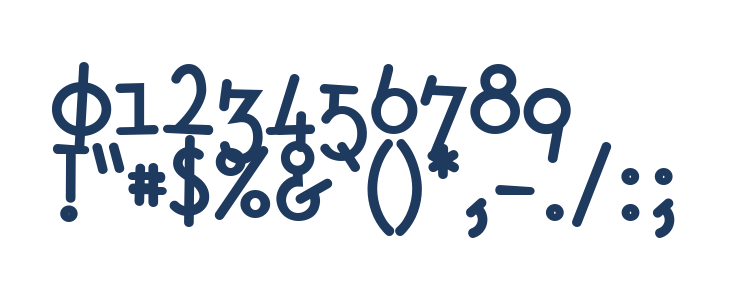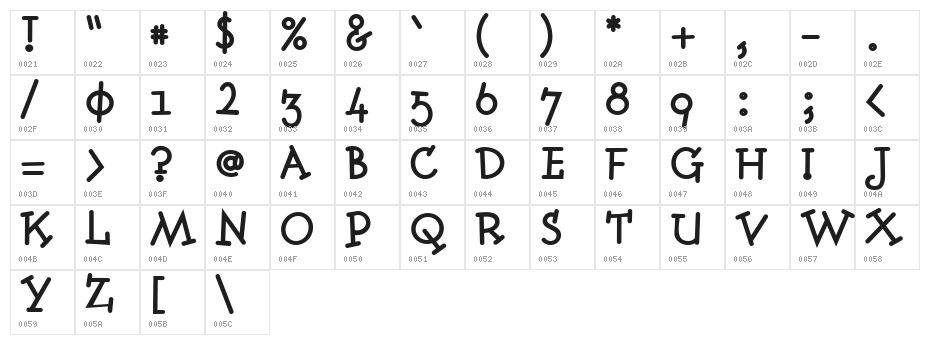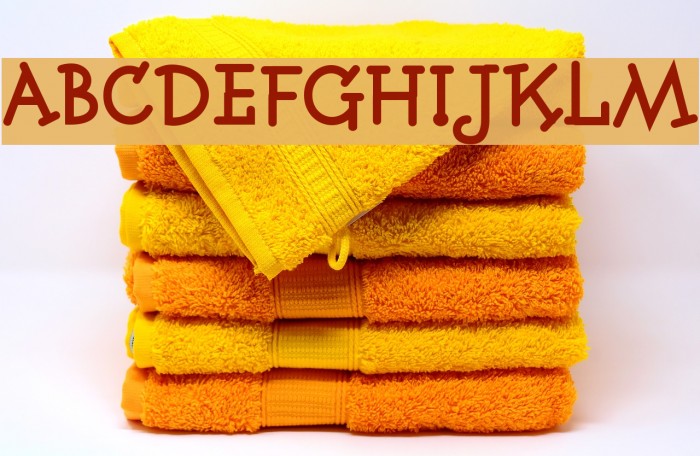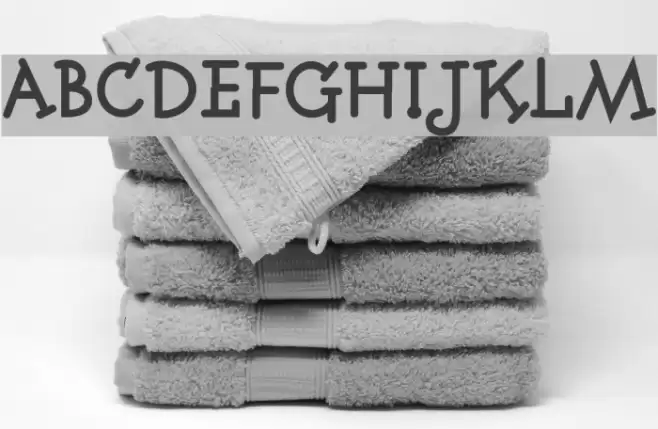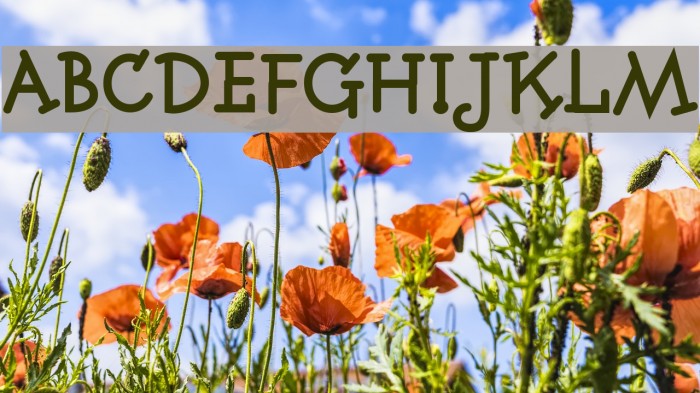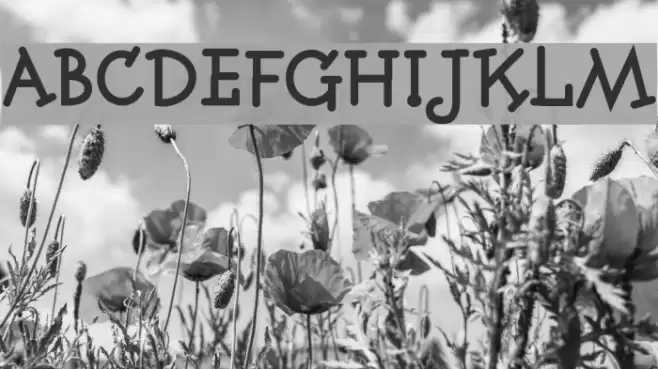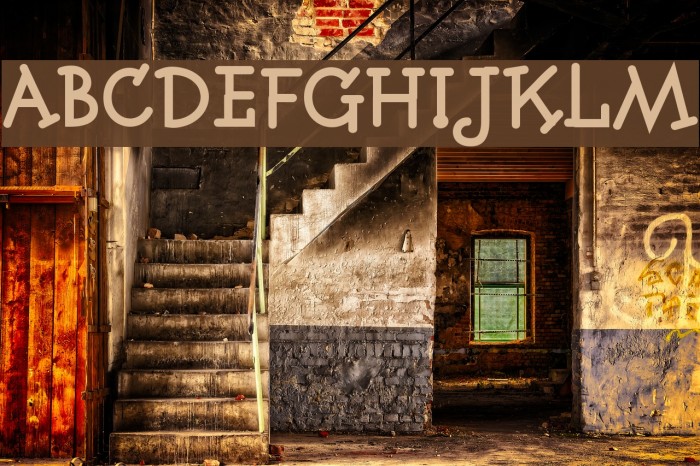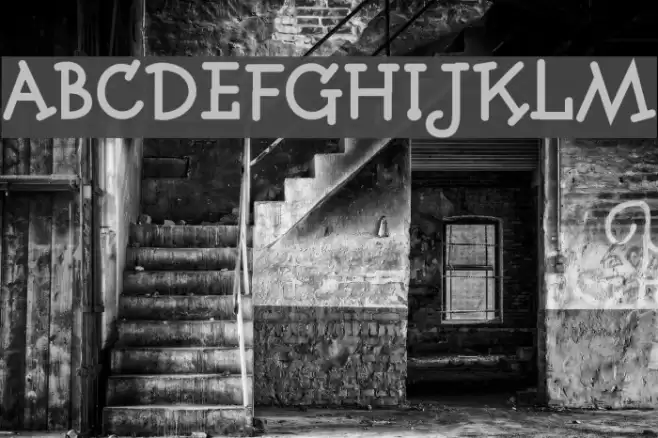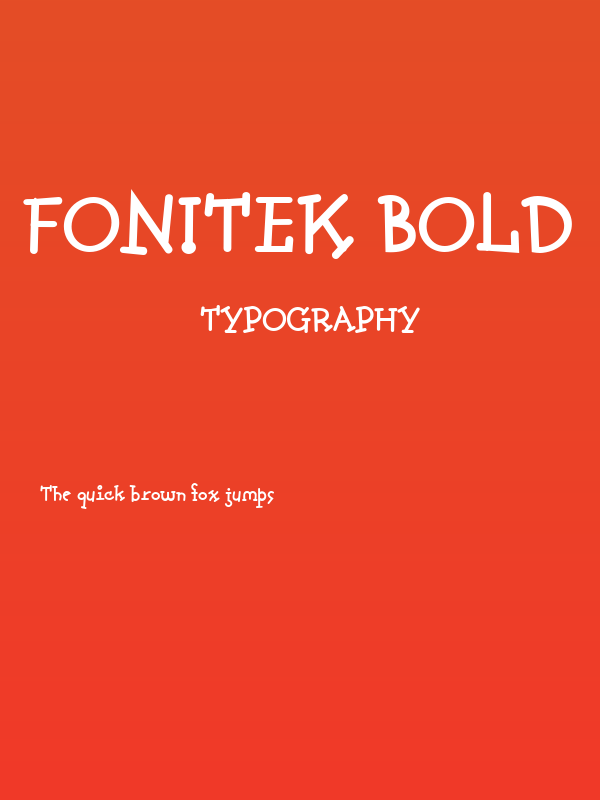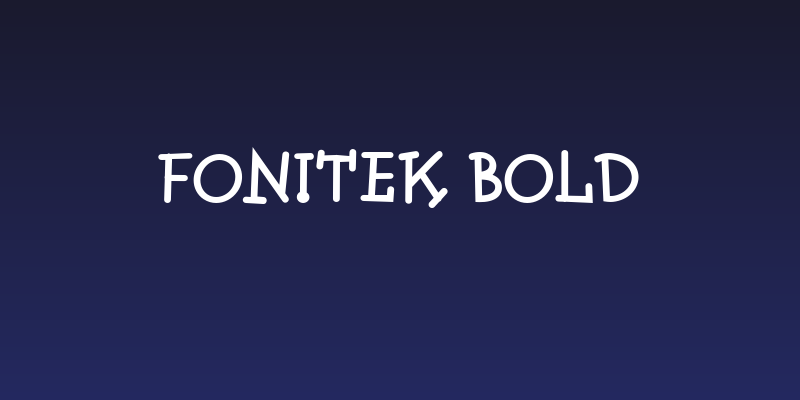
Fonitek Bold Font
Fonitek Bold Description
This font features a playful and whimsical design with a bold and rounded appearance. The characters have a hand-drawn quality, with slightly irregular strokes that add to its charm. The uppercase letters are distinct with exaggerated curves and angles, while the lowercase letters maintain a consistent style with rounded terminals. The numerals are equally bold and maintain the playful aesthetic. Special characters are creatively designed, fitting seamlessly with the overall style. This font is ideal for projects that require a fun and informal touch.
| Proposed Projects | Ideal for children's books, playful branding, posters, and casual invitations. |